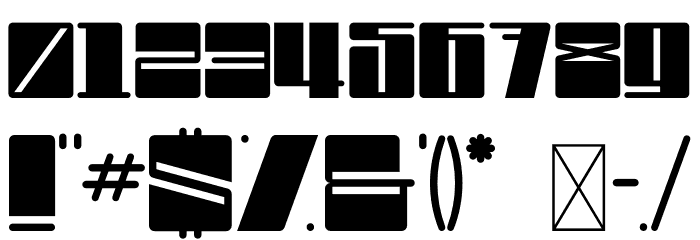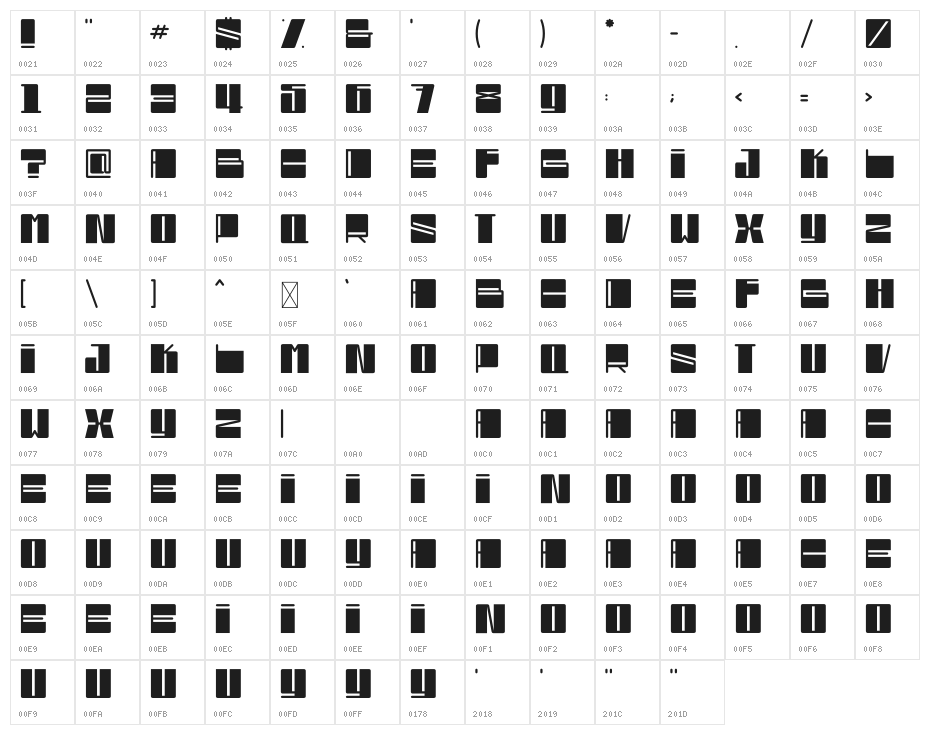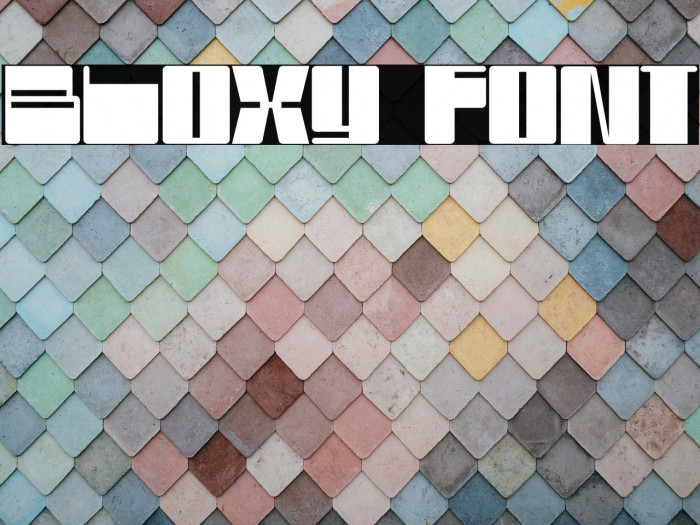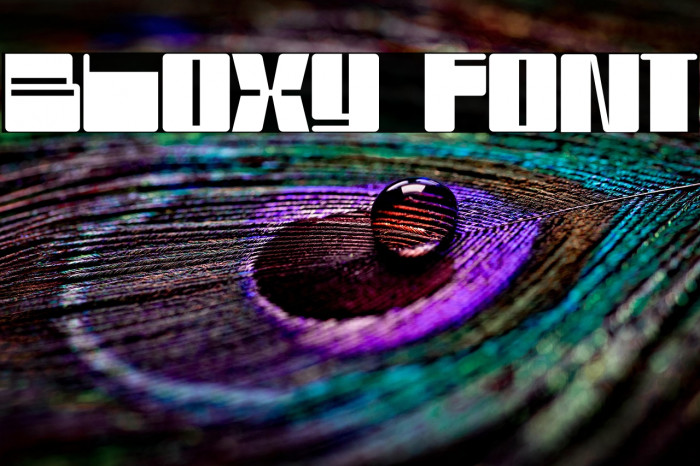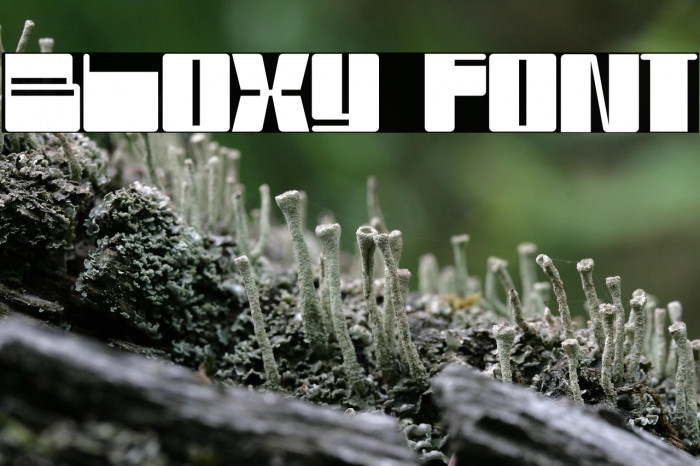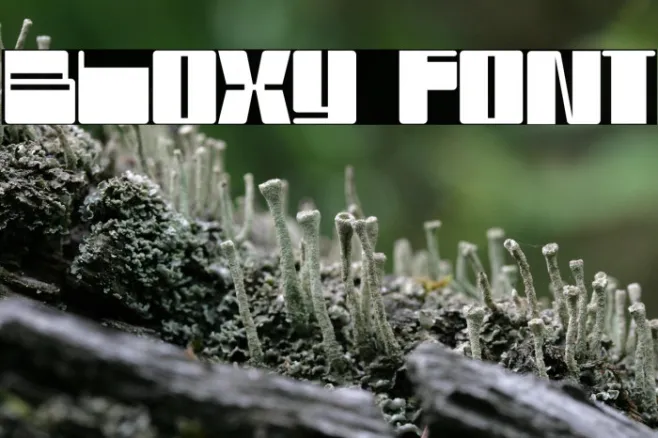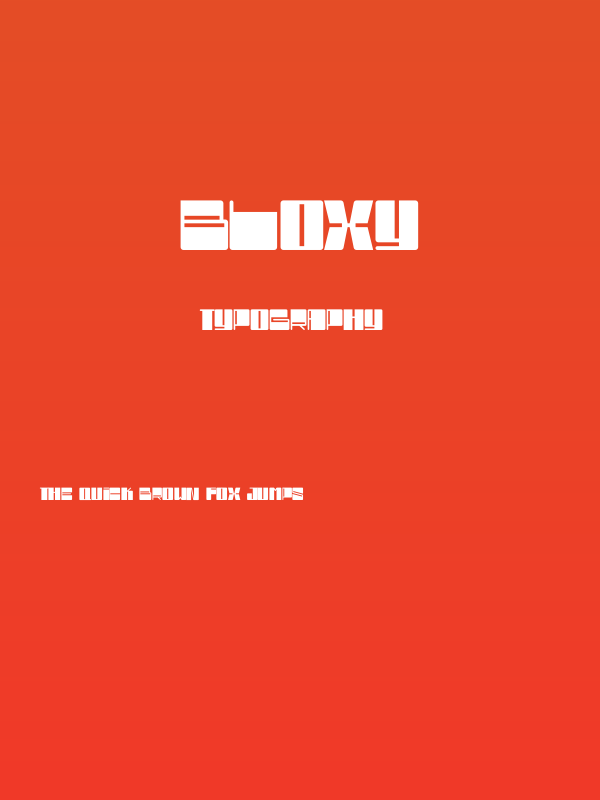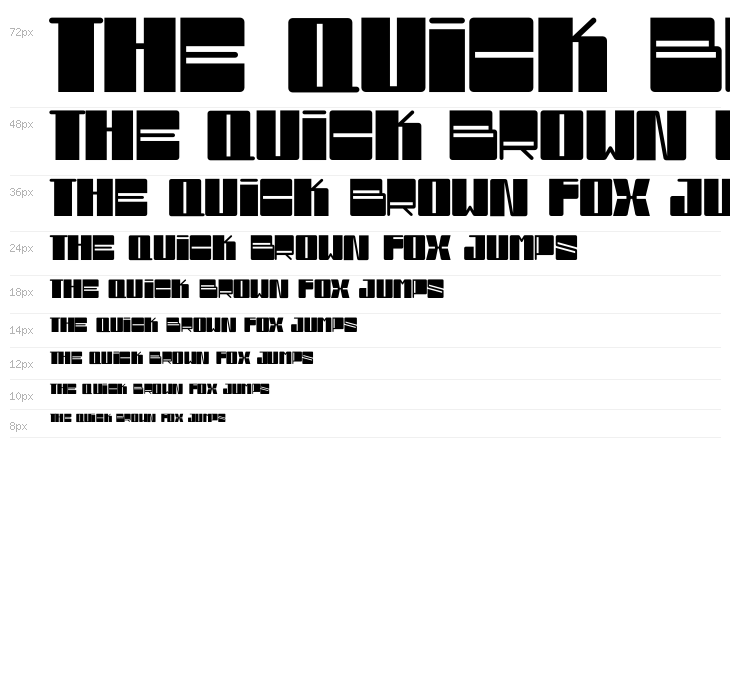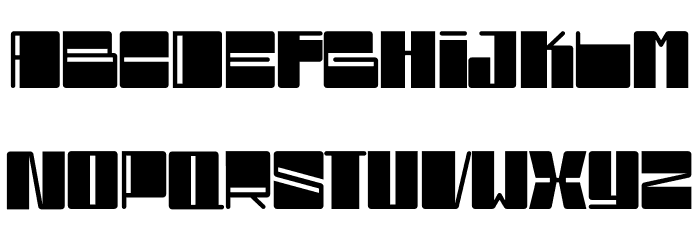
Bloxy Font
Bloxy Description
This font features a bold, geometric design with a distinctly modern and futuristic aesthetic. The characters are constructed with thick, block-like shapes that create a strong visual impact. Each letter is crafted with a unique style, incorporating angular cuts and sharp edges that add to its dynamic appearance. The font maintains a consistent weight throughout, emphasizing its boldness. The character spacing is tight, which enhances the compact and robust feel of the typeface. The numbers and special characters follow the same design principles, ensuring a cohesive look across all elements.